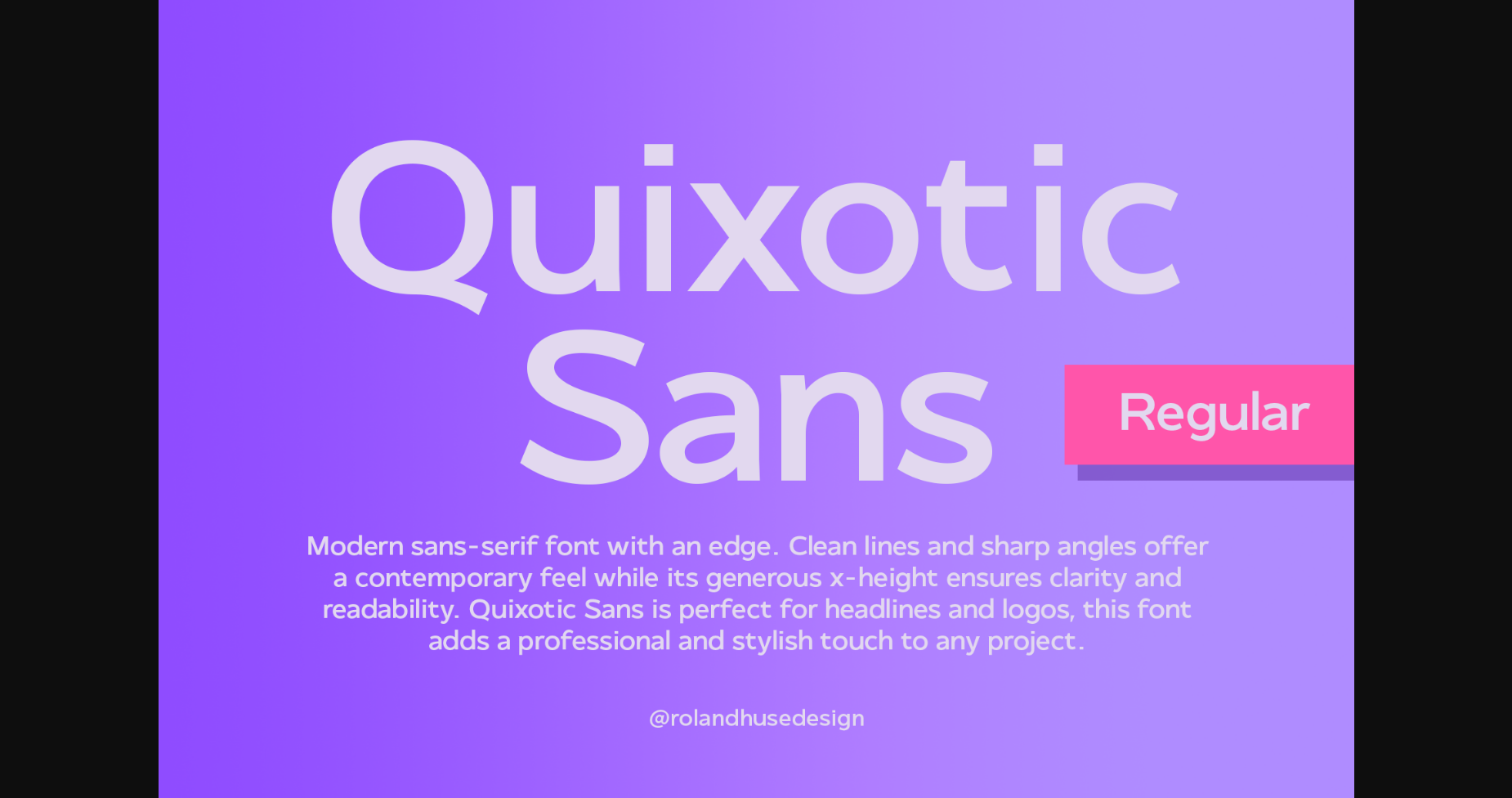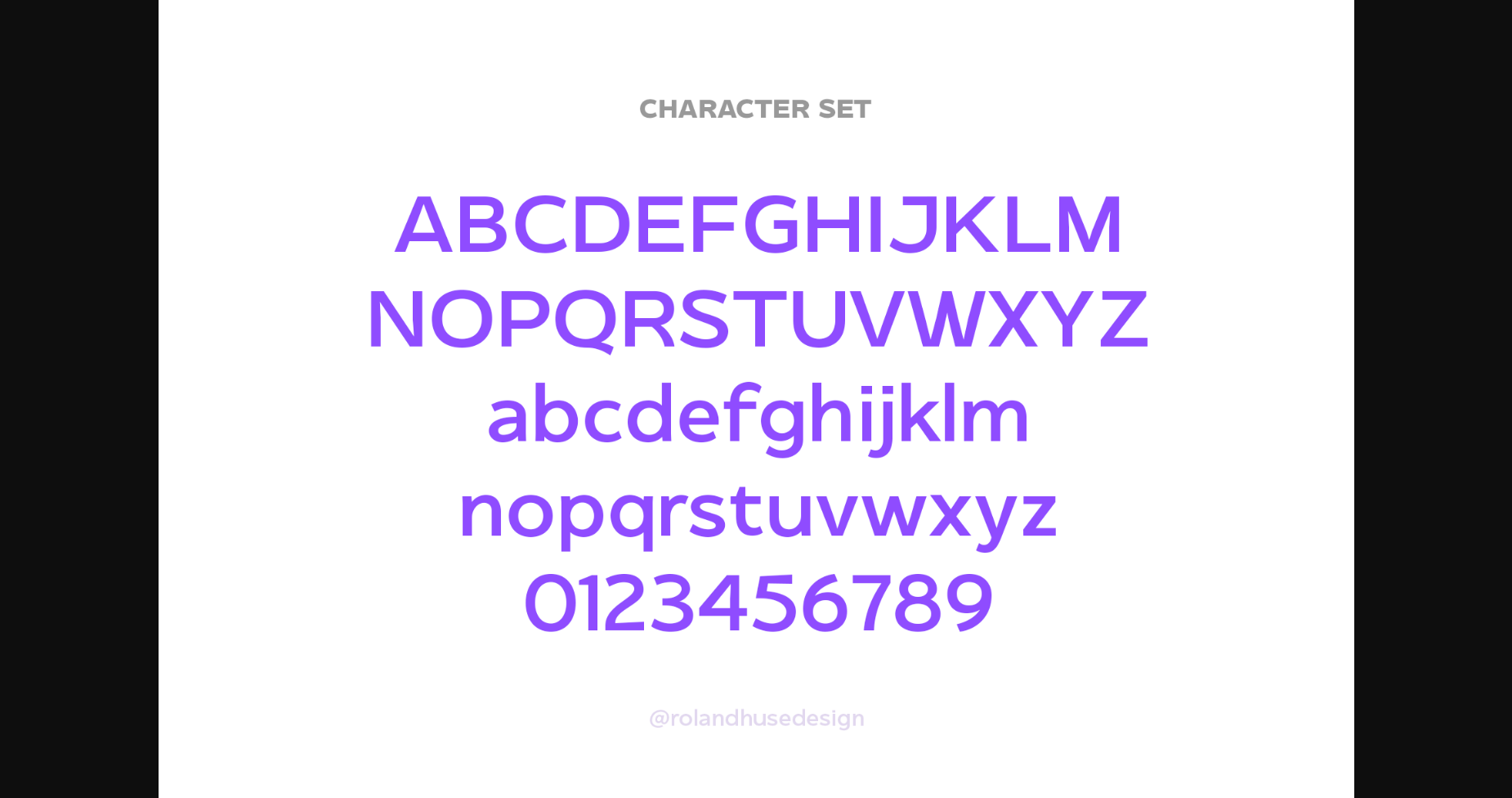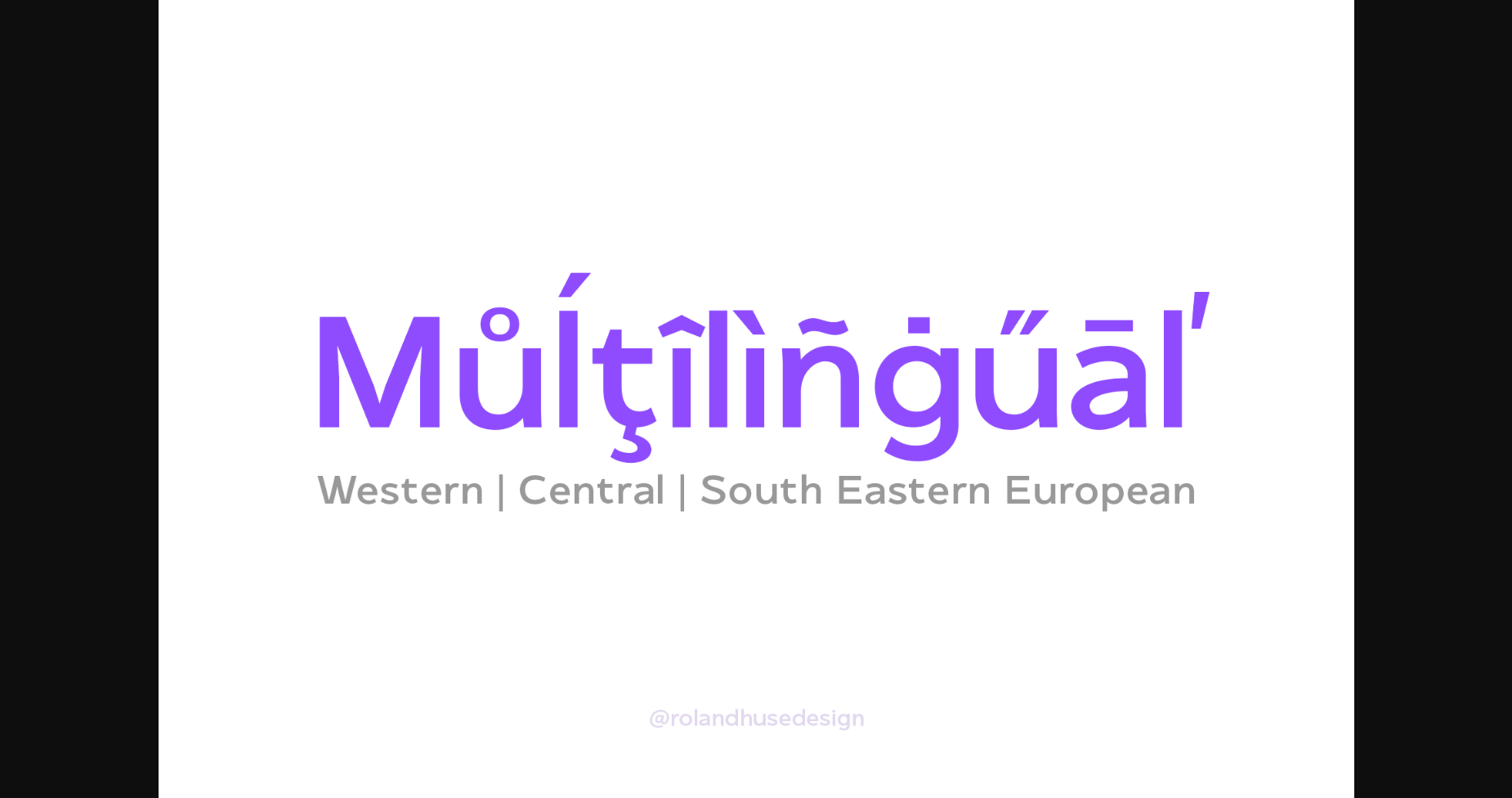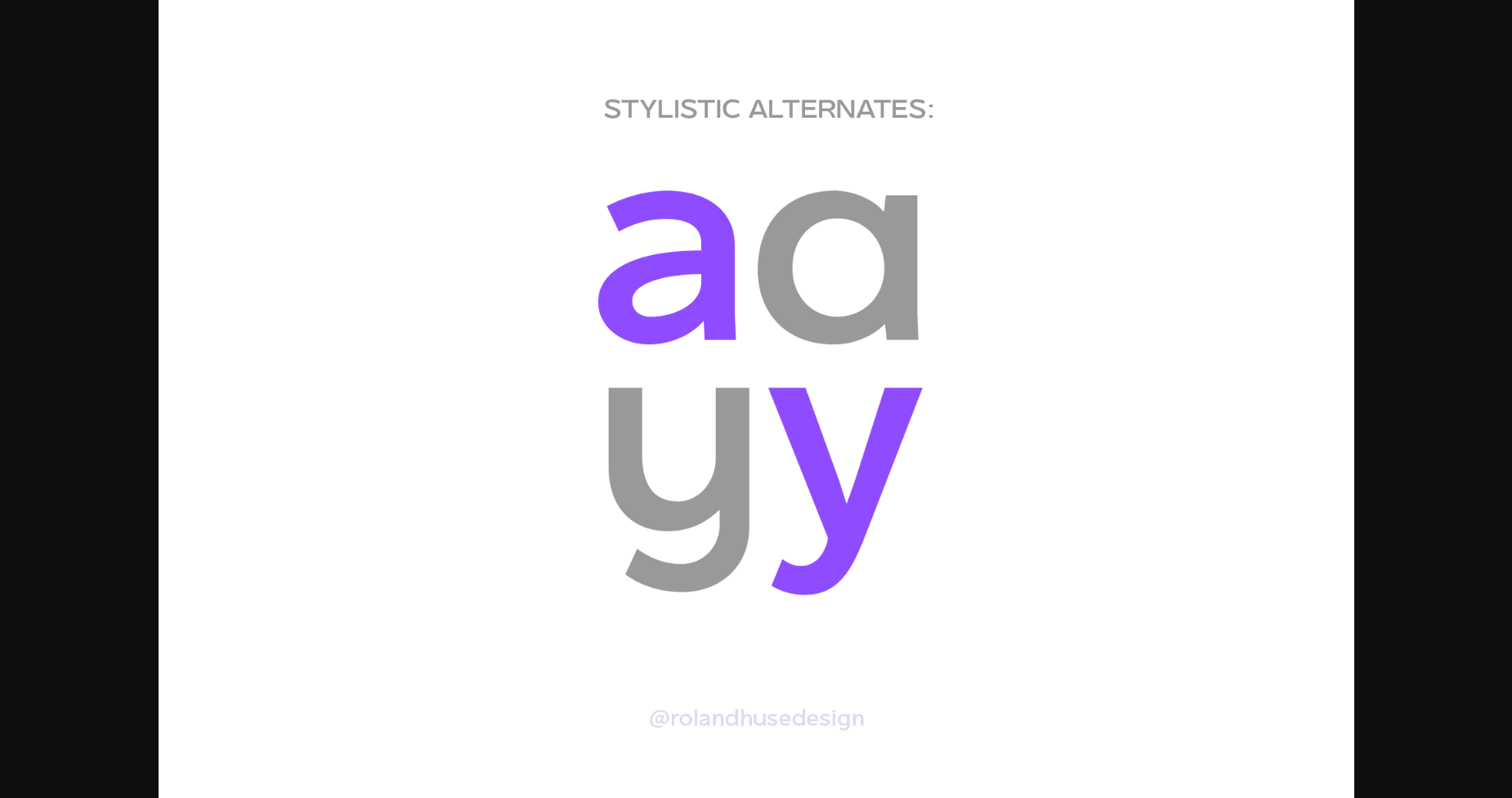
Quixotic Font
About Quixotic Font
Modern sans-serif font with an edge. Clean lines and sharp angles offer a contemporary feel while its generous x-height ensures clarity and readability. Quixotic Sans is perfect for headlines and logos, this font adds a professional and stylish touch to any project.